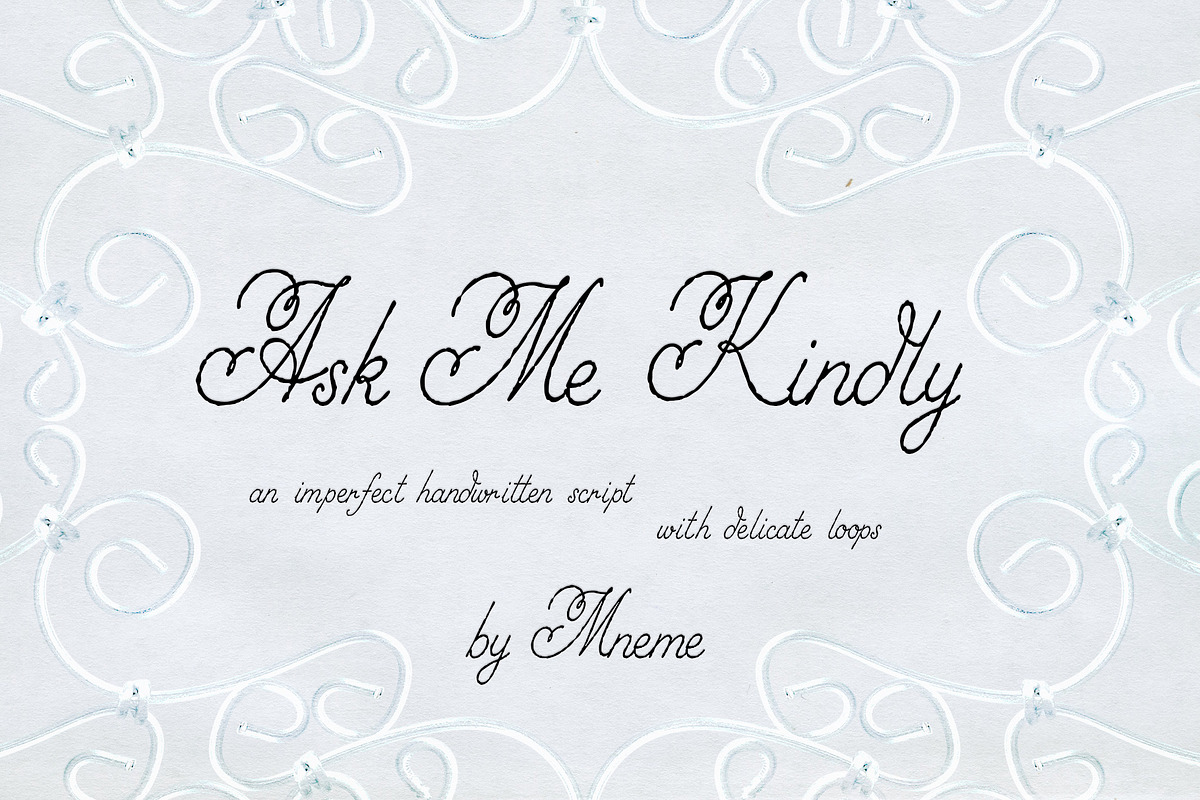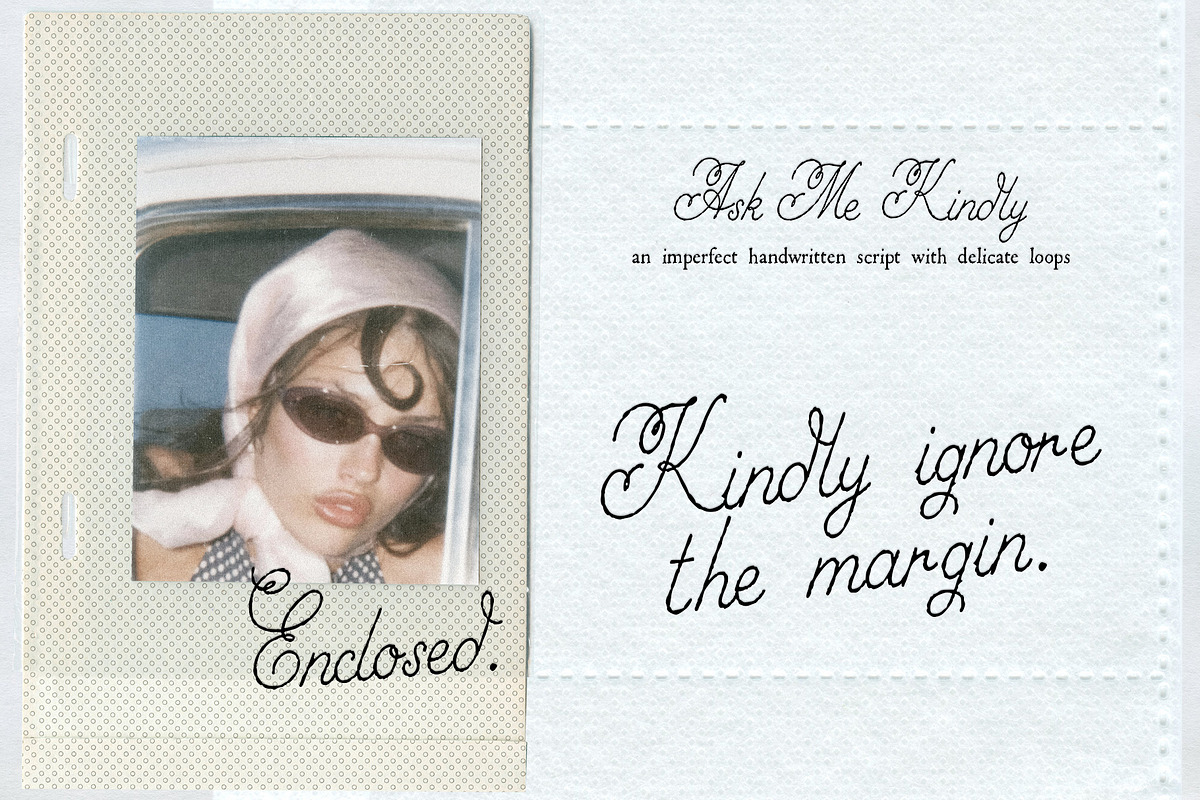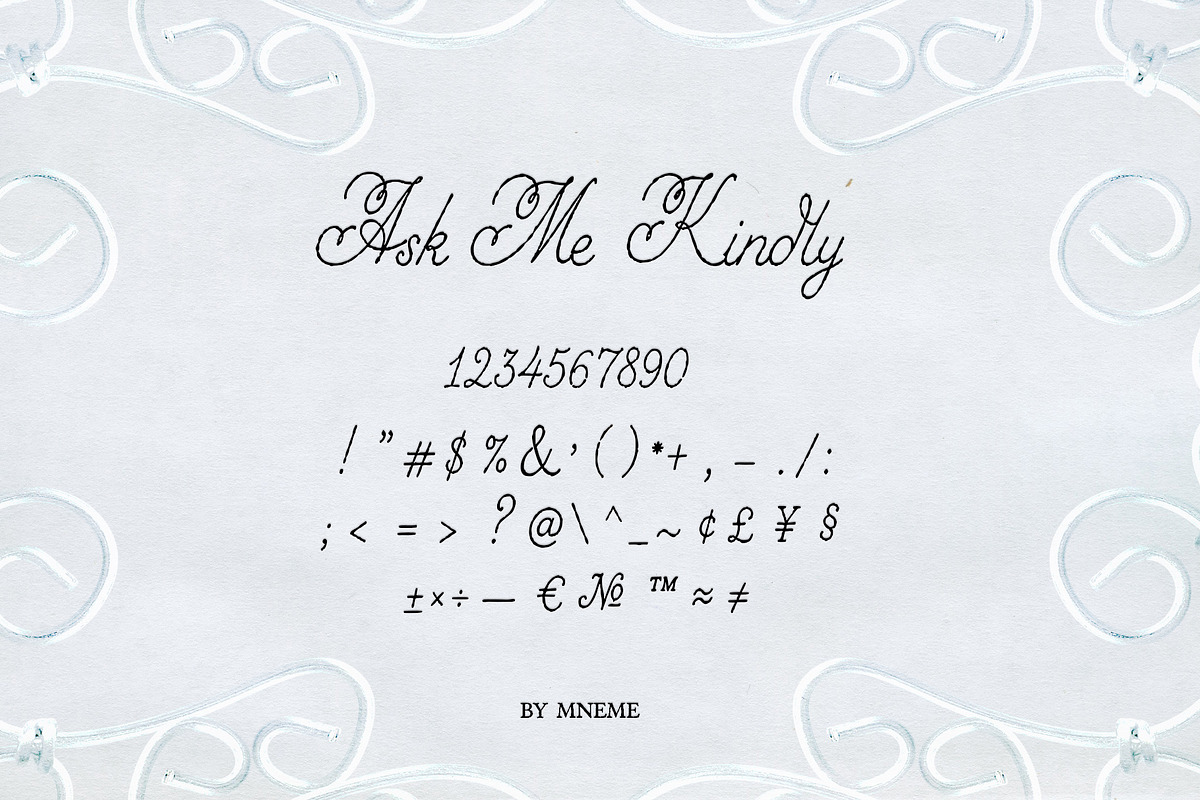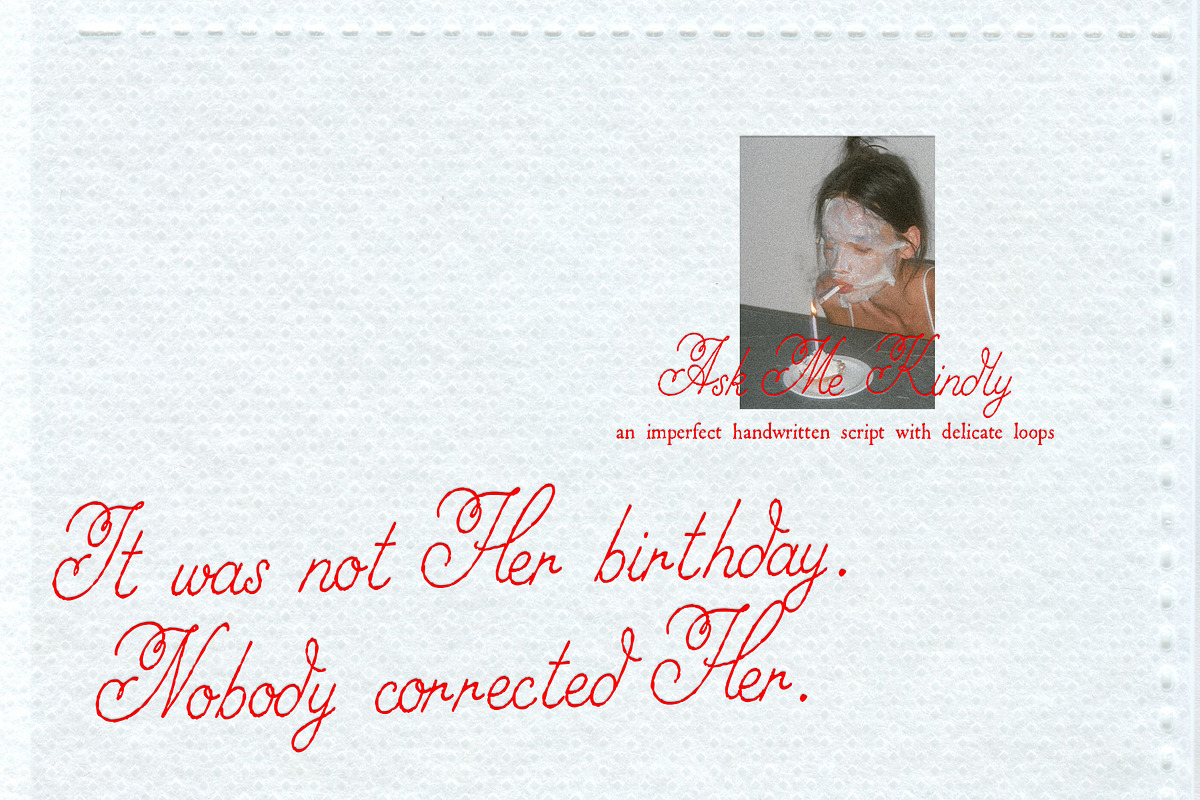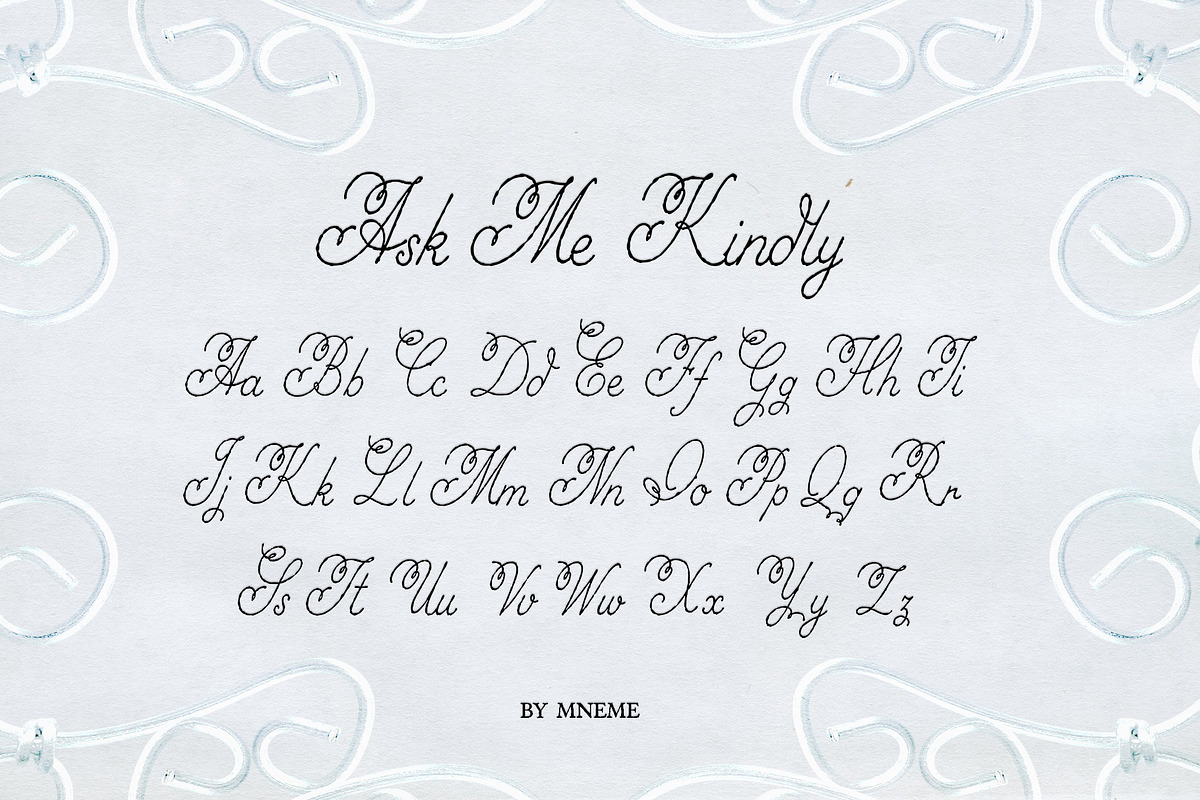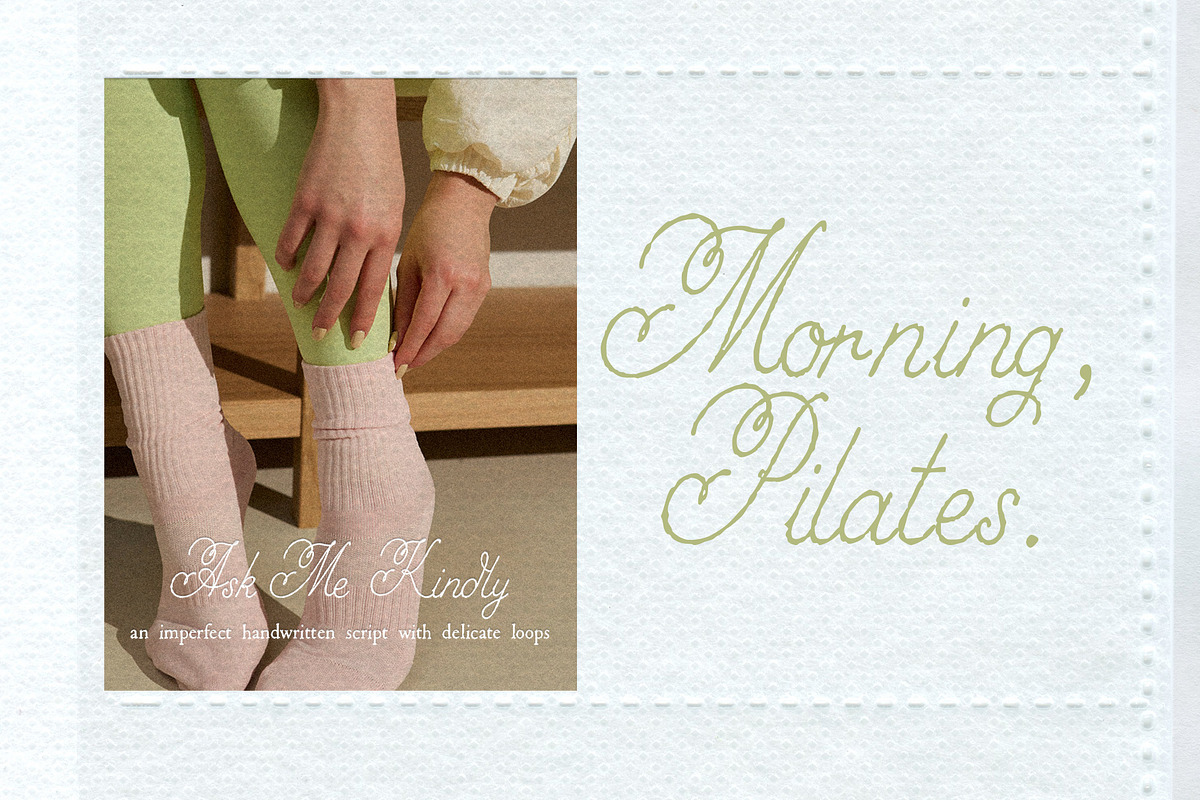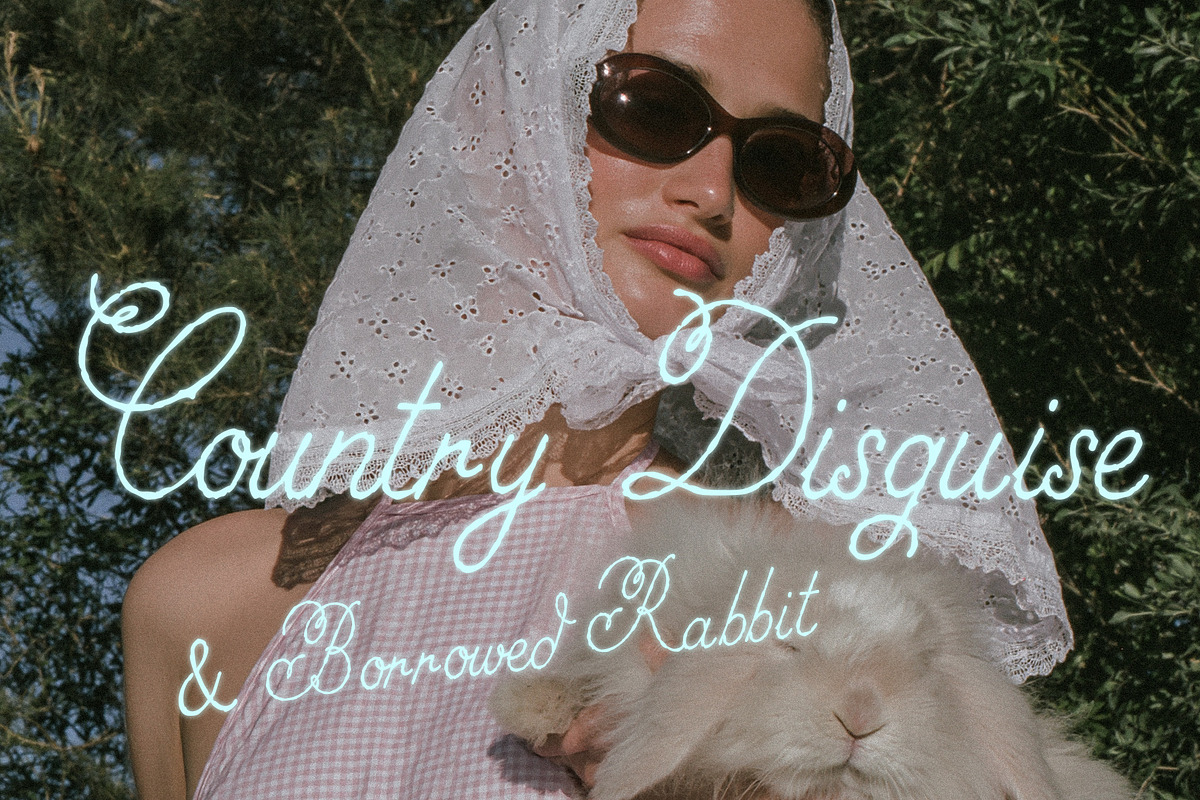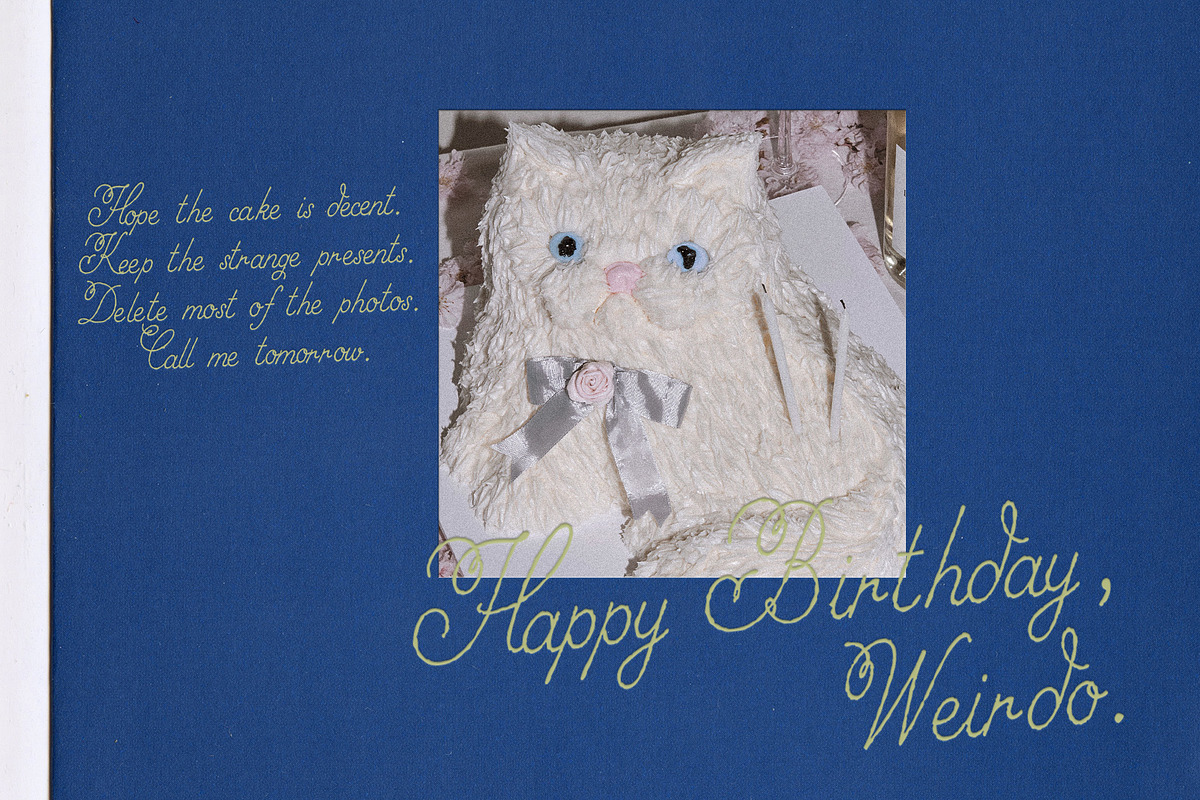
Ask Me Kindly Font
Ask Me Kindly is an imperfect handwritten script with ornate capitals, fine looping strokes and the natural irregularities of hand-drawn lettering.
Decorative initials give short words a formal, expressive silhouette, while the narrower lowercase keeps longer lines light and readable. Slight changes in proportion and rhythm prevent the letters from feeling mechanically repeated.